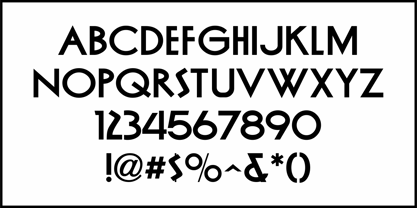
Casting Agent JNL
von Jeff Levine
Die Schriftfamilie Casting Agent JNL wurde von Jeff Levine entworfen und von Jeff Levine veröffentlicht. Casting Agent JNL enthält 2 Stile und Familienpaketoptionen. Mehr über diese Familie
The Motion Picture News issue of December 14, 1929 carried an ad promoting Universal Pictures. The hand Lettering used within the ad is a pleasant sans serif with just a hint of the newly-emerging Art Deco design movement.
This is now available as Casting Agent JNL in both regular and oblique versions.
Designer: Jeff Levine
Foundry: Jeff Levine